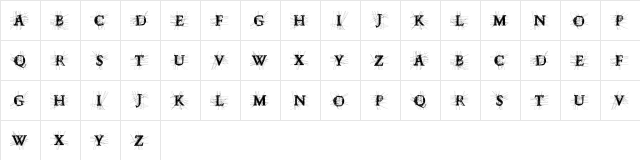
GaramondPowerLineCaps Regular
Design Context for GaramondPowerLineCaps Typeface
GaramondPowerLineCaps has the bold swagger of sports branding: strong, assertive letterforms designed to dominate headlines and jerseys alike.
A natural choice for gym brands, fantasy sports, jersey lettering, and action-driven headlines.
Pro Tip: Use GaramondPowerLineCaps in all-caps headlines where its athletic energy can fully express itself. Pair with a solid, simple sans for supporting text.